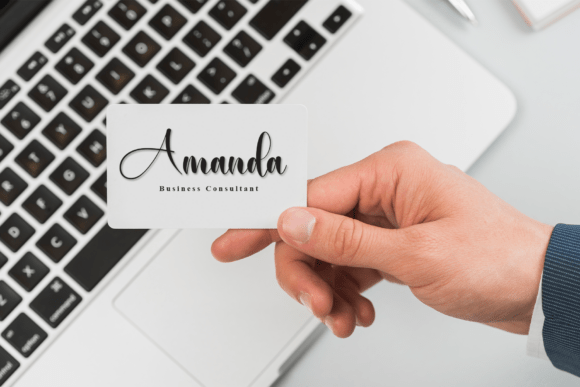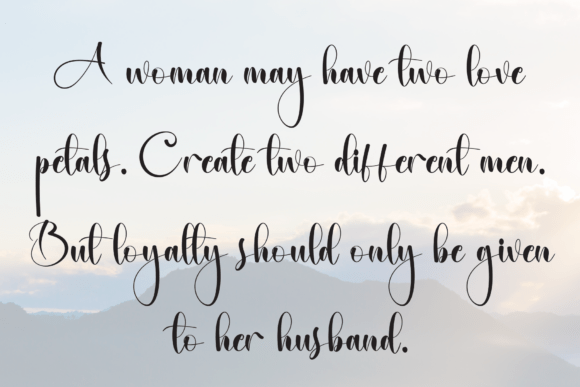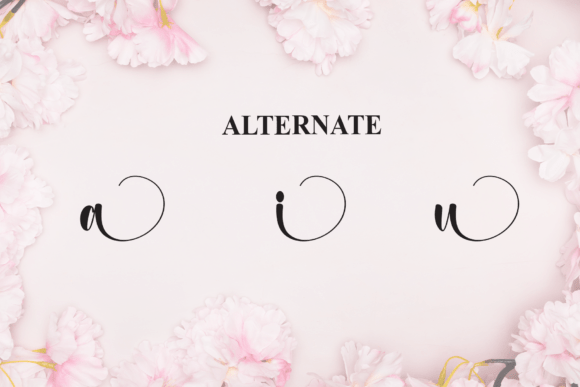
Unlock the Sophistication of the Deandra Font
Imagine you’re designing a luxurious wedding invitation, and you need a font that exudes elegance and refinement. As you browse through your font library, one style catches your eye – a script that screams modern luxury and feminine charm. This is where the Deandra Font comes into play, offering a sophisticated and sleek script that elevates your designs to new heights.
The Deandra Font is a game-changer for designers specializing in the beauty, fashion, or wedding industries. Its refined features, such as elongated connectors and a steady, rhythmic flow, make it an exceptional choice for boutique branding and high-end stationery. By incorporating this versatile typeface into your designs, you provide a sense of exclusivity and timeless style that’s hard to resist.
With its PUA-encoded capabilities, accessing all glyphs is effortless, making the Deandra Font an essential asset for any designer looking to create a premium brand experience.
Deandra Font Key Features
- Font Family: Deandra
- Font Styles: Regular, Italic, Bold, Bold Italic
- Unique Characteristics: Elegant, modern design with a mix of geometric and organic elements, suitable for use in branding, advertising, and editorial contexts
Deandra Font Review
As a designer, I’ve had the opportunity to work with a wide range of fonts, and Deandra is definitely one that caught my attention. Here’s my honest review:
- Unique and stylish: Deandra’s got a distinct look that’s sure to grab attention. Its elegant and sophisticated vibe makes it perfect for high-end brands or luxury products.
- Well-balanced proportions: The font’s proportions are well-balanced, making it easy to read and use in various contexts.
- Large character set: Deandra comes with a comprehensive character set, including a wide range of languages and special characters.
- Not ideal for body text: While Deandra looks great in headings and titles, it might not be the best choice for large blocks of body text. Its unique style can be overwhelming when used extensively.
- Limited line spacing options: Deandra’s line spacing is quite fixed, which can make it difficult to customize to suit different design needs.
Overall, Deandra is a beautiful font that shines in the right contexts. While it may not be the best choice for every project, it’s definitely worth considering for high-end or luxury designs. Just be mindful of its limitations, and you’ll be golden!
Tip: Use Deandra Font for headings and titles to add a touch of elegance to your designs.
Tip: Use Deandra Font for titles and headings to add a touch of sophistication to your designs.
Tip: Use Deandra Font for headings and titles to add a touch of professionalism to your presentations and documents.
Deandra Font is ideal for:
- Business presentations and reports
- Blog posts and articles
- Marketing materials and advertisements
Remember to use Deandra Font consistently throughout your design to create a cohesive and polished look.
Montserrat is a modern sans-serif font designed for use in urban environments. It is highly legible and versatile, making it suitable for a wide range of applications, from corporate branding to digital interfaces. Compared to Deandra Font, Montserrat has a more geometric and urban feel, making it perfect for modern and edgy designs where Deandra Font may be too classic.